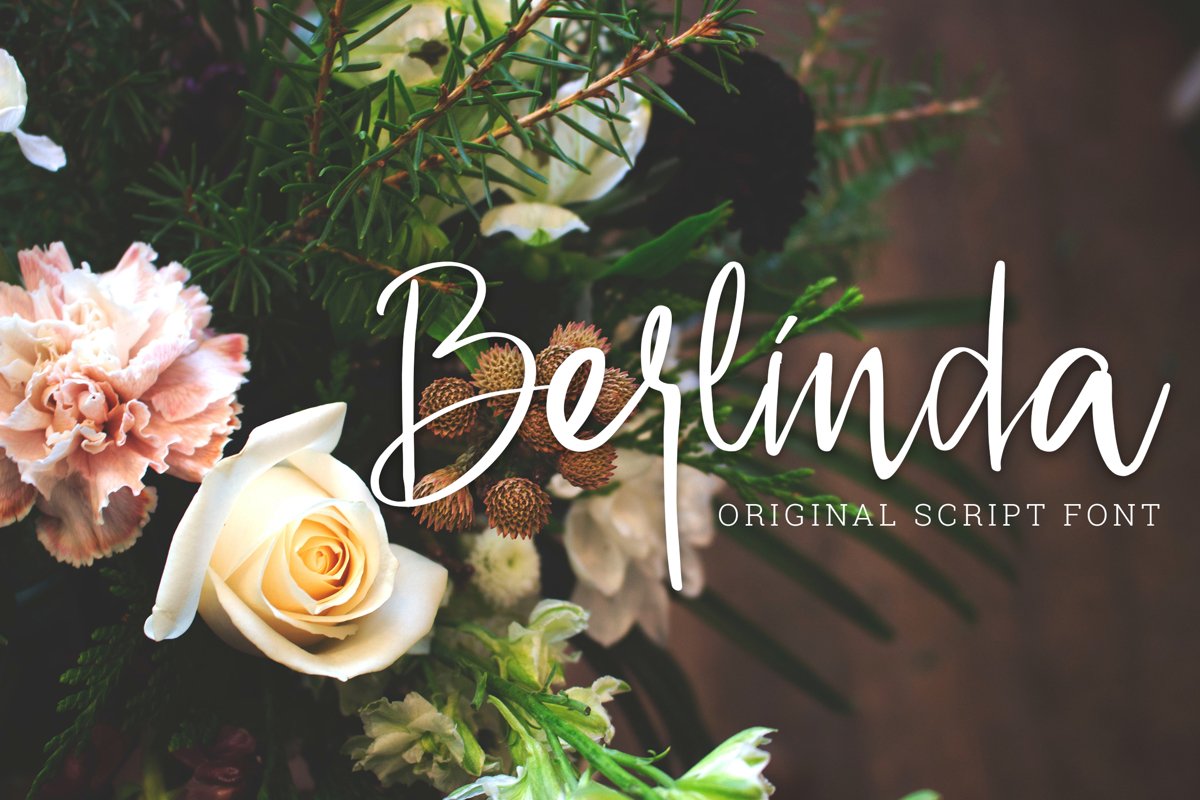
Berlinda - Handwritten Font
Berlinda
a set of cool fonts that mix and match
and snuggle together like one big alphabet family.
Both the Littles and Middles alphabets can stand alone on their own, or
they can mix together.
And the Talls are designed especially to cradle the Littles, so you can make cool combinations.